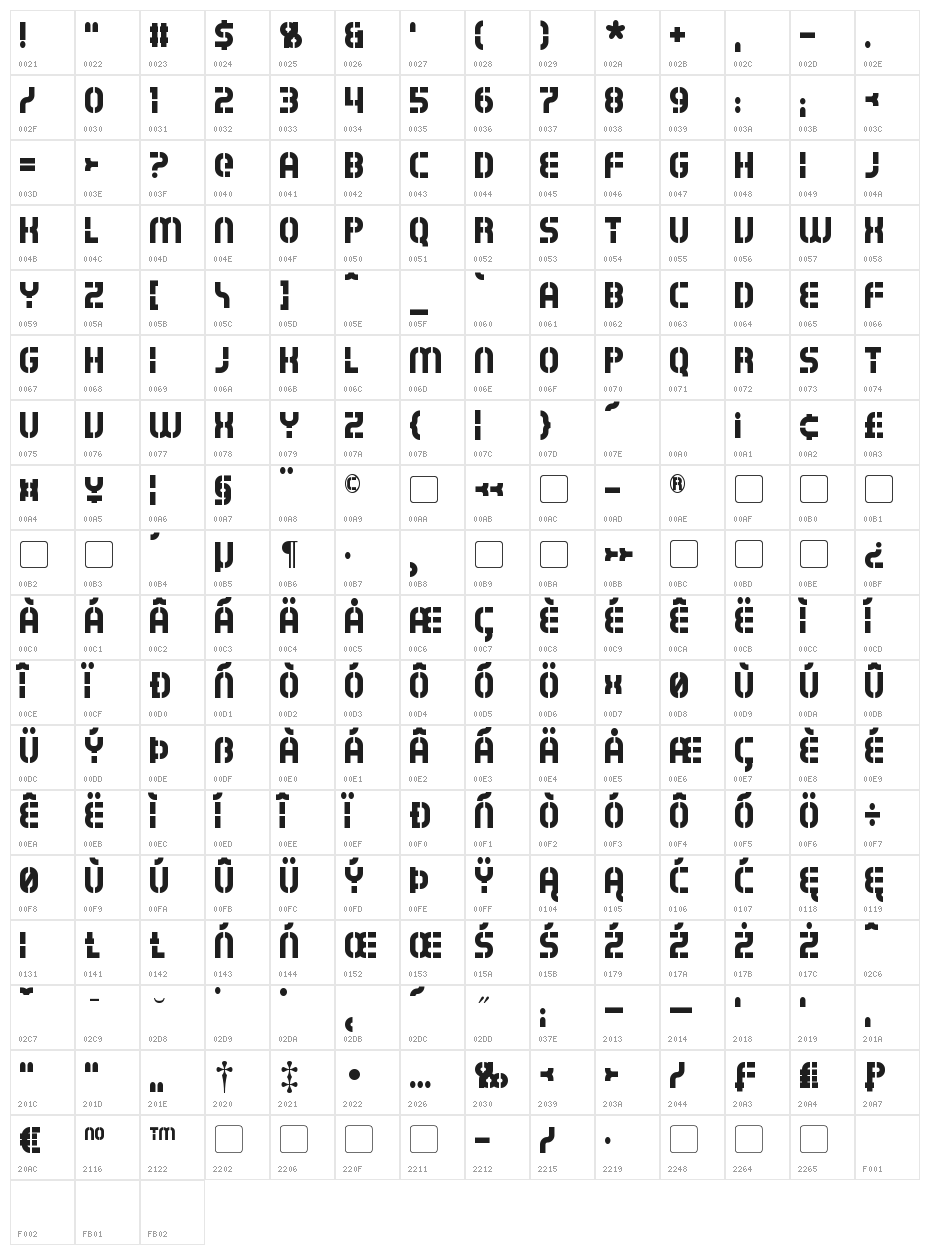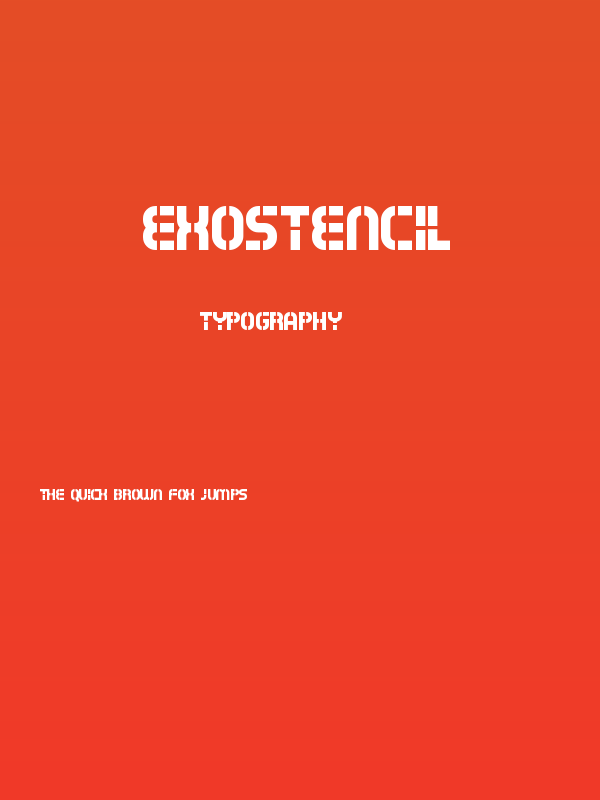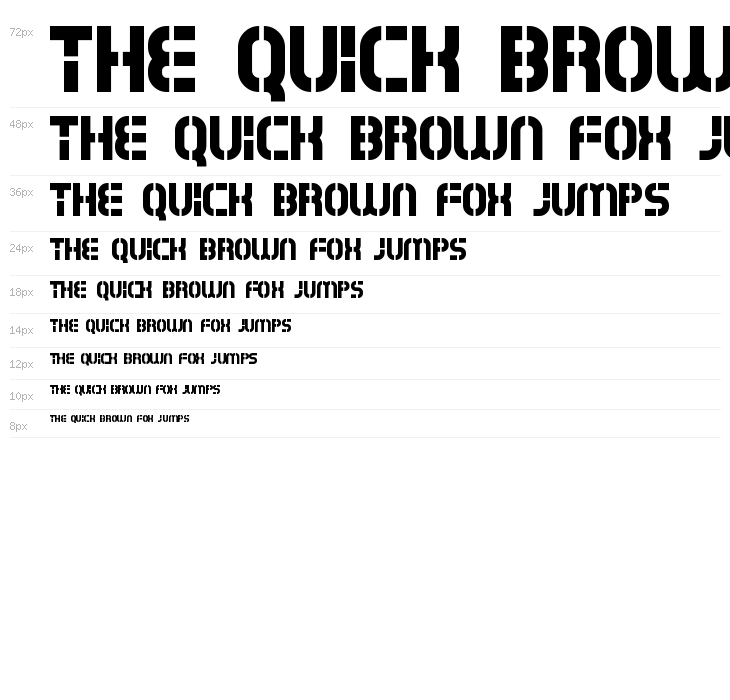
Exostencil Font
Exostencil Description
This font features a bold, stencil-like design with distinct geometric cuts that create a modern and industrial feel. The uppercase and lowercase letters maintain a consistent width, giving the typeface a uniform appearance. The numbers and special characters follow the same design principles, ensuring cohesion across all elements. The font's boldness and unique style make it stand out, while the stencil cuts add an element of intrigue and creativity. The characters are well-spaced, providing readability despite the bold design. This font is ideal for projects that require a strong visual impact, such as posters, branding, and signage.
Proposed ProjectsIdeal for posters, branding, signage, and any project needing a strong visual impact.